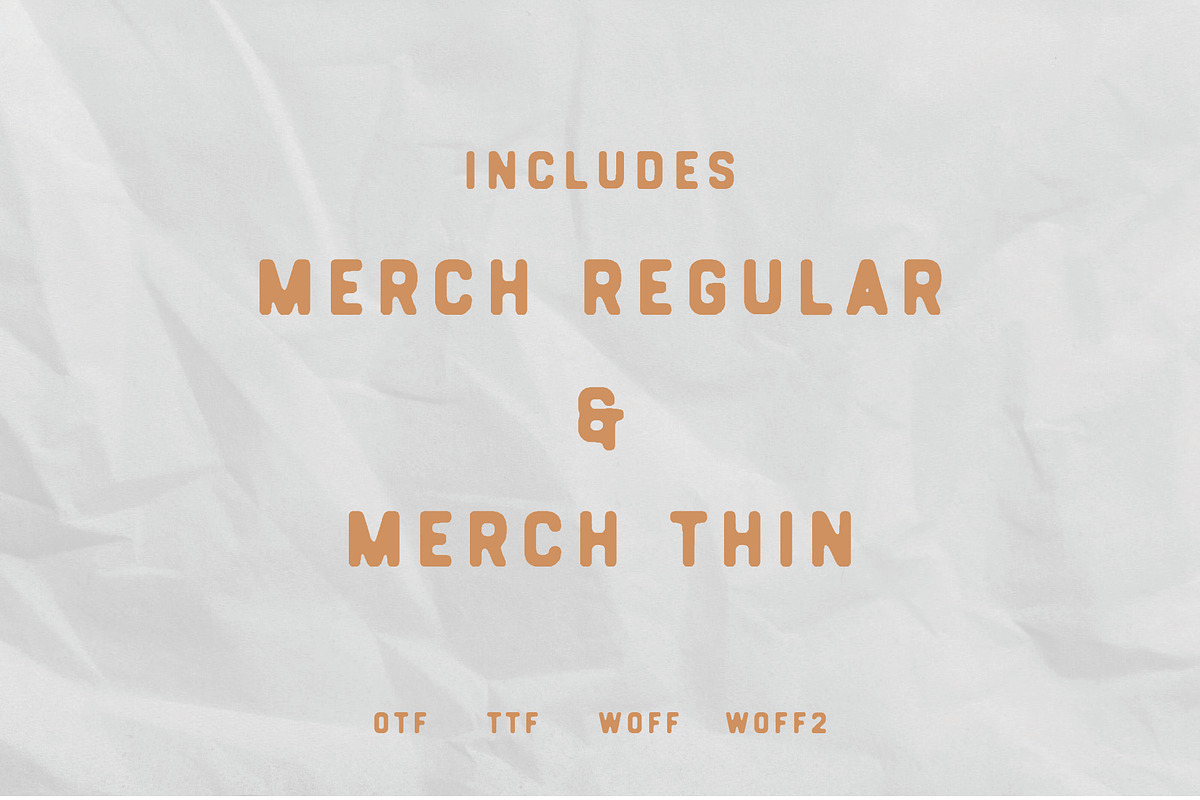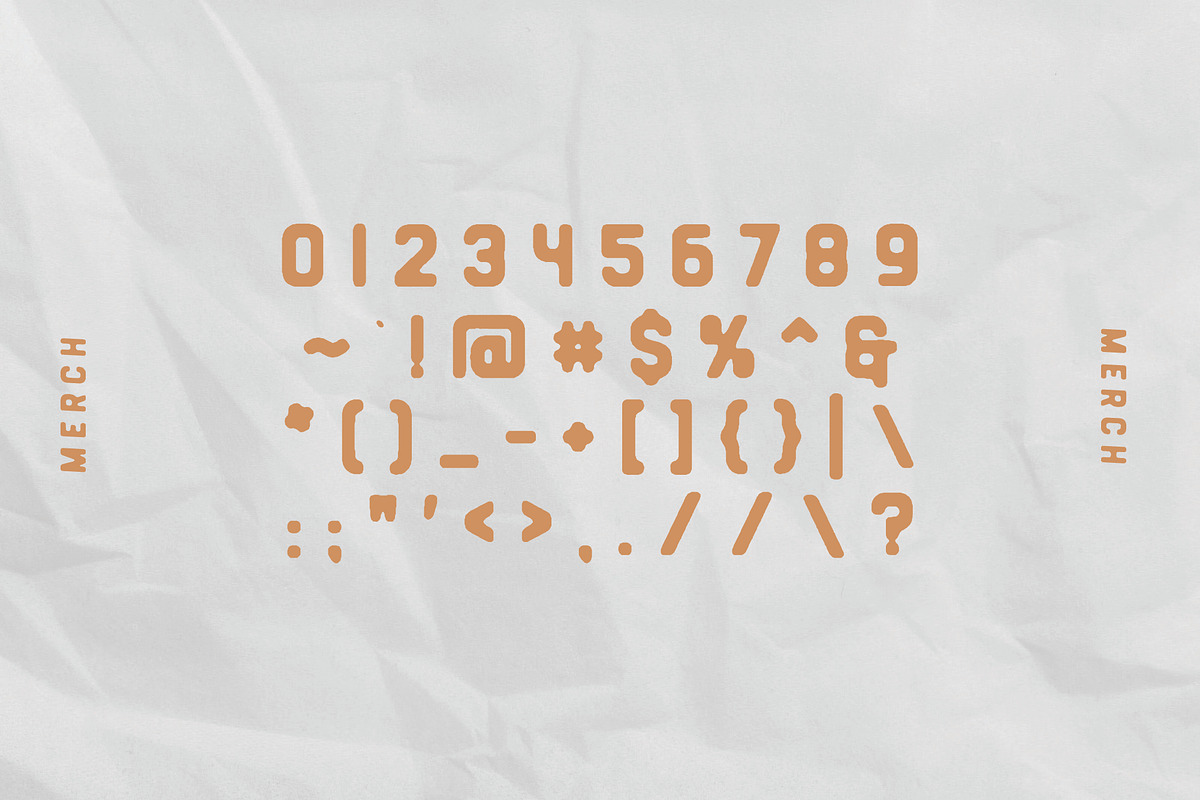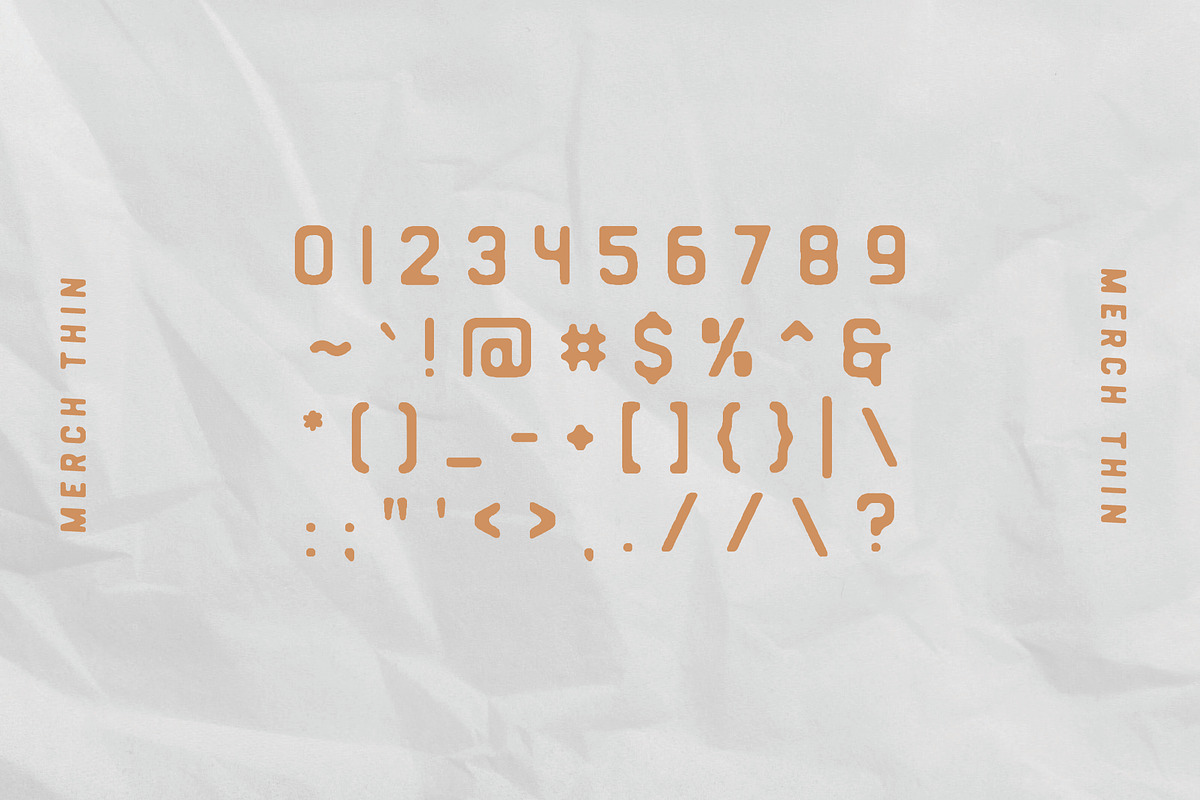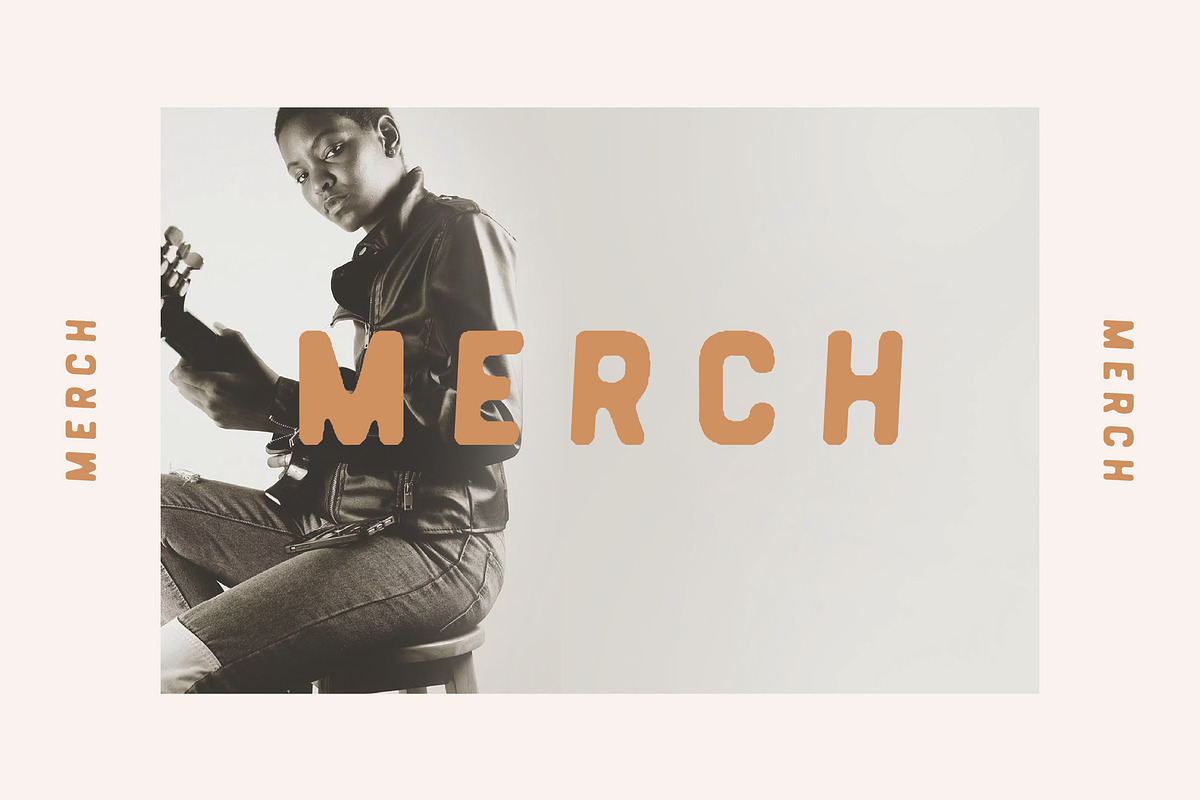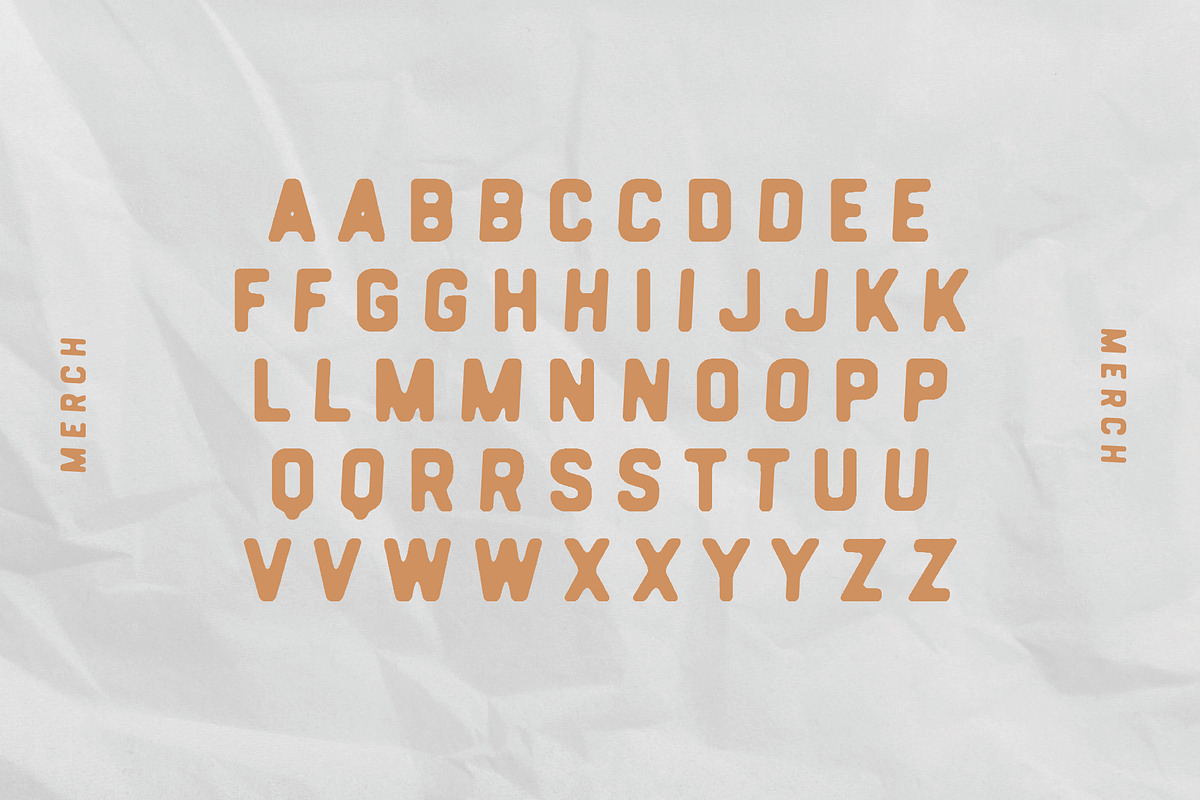
Merch Regular + Thin
Merch is a dynamic display font with two widths, regular and thin- with an upright and slanted character style for variation to elevate your designs - from branding, logos, and promotional materials, to instagram posts, invitations, and print-on-demand graphics.